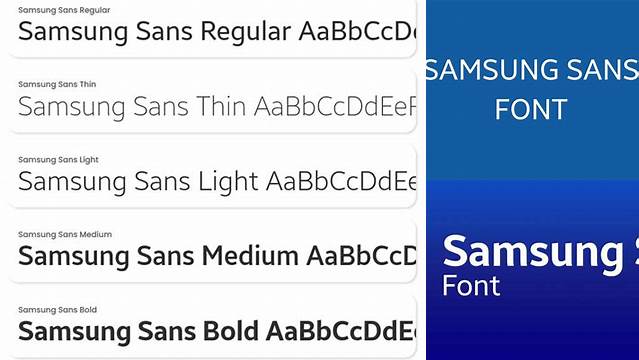
Samsung Sans Font: What Makes It Special?
The Samsung Sans font is more than just another typeface. It embodies the minimalist and modern design philosophy that Samsung is known for. Its clean lines and balanced letterforms make it incredibly versatile, suitable for a wide range of applications. Whether you're designing a website, creating marketing materials, or working on a presentation, Samsung Sans can bring a touch of sophistication and clarity to your work.
One of the key attributes of the Samsung Sans font is its exceptional legibility. The font is designed to be easily readable across different screen sizes and resolutions, making it ideal for digital platforms. Its neutral design ensures that it doesn't distract from the content but rather enhances it, allowing the message to stand out. Furthermore, its broad character set supports multiple languages, making it a global choice for designers and businesses. All these factors contribute to why Samsung Sans is a favorite among professionals looking to add a modern and polished touch to their projects.
Using Samsung Sans in Your Design Projects
Alternatives to Samsung Sans
Samsung Sans and the Future of Digital Typography
Digital typography is rapidly advancing, with variable fonts and AI-powered design tools transforming the landscape. Samsung Sans, with its clean and adaptable design, is well-positioned to thrive in this evolving environment. Variable fonts allow for greater flexibility and customization, while AI tools can assist in font selection and pairing. As technology continues to advance, expect to see even more innovation in digital typography, making fonts more accessible and powerful than ever before.